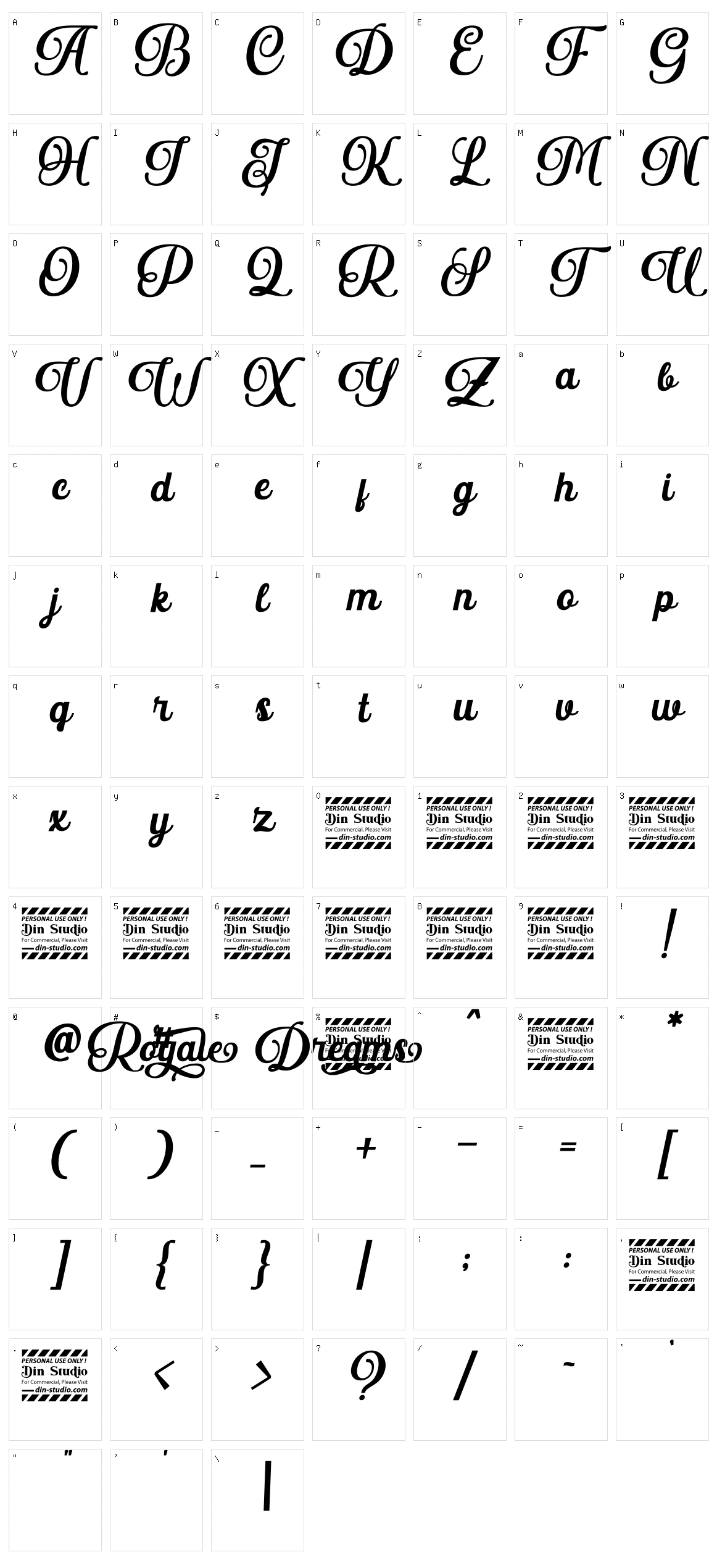
The free font Royale Dreams is carefully designed by Din Studio, showcasing a thoughtful balance of creativity and usability and falls under the Script font style. When you download the ZIP file, it contains only 298.08 KB of font files, making it lightweight and quick to download. Please review the license details below to understand permitted usage and distribution rights. If license information is not available, we recommend using this font for personal projects only or contacting the author directly for commercial usage permissions.